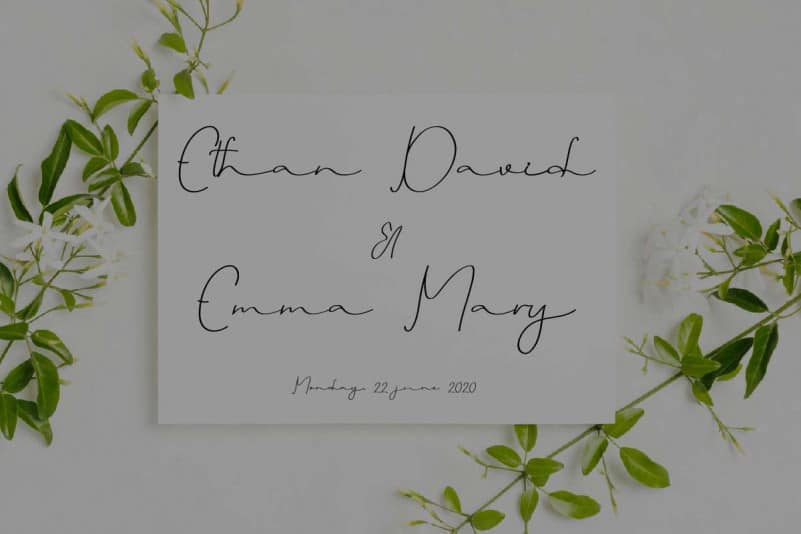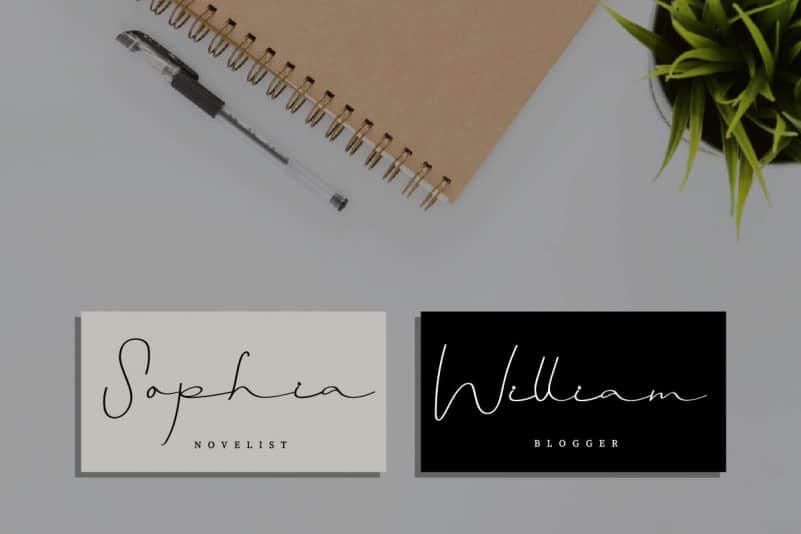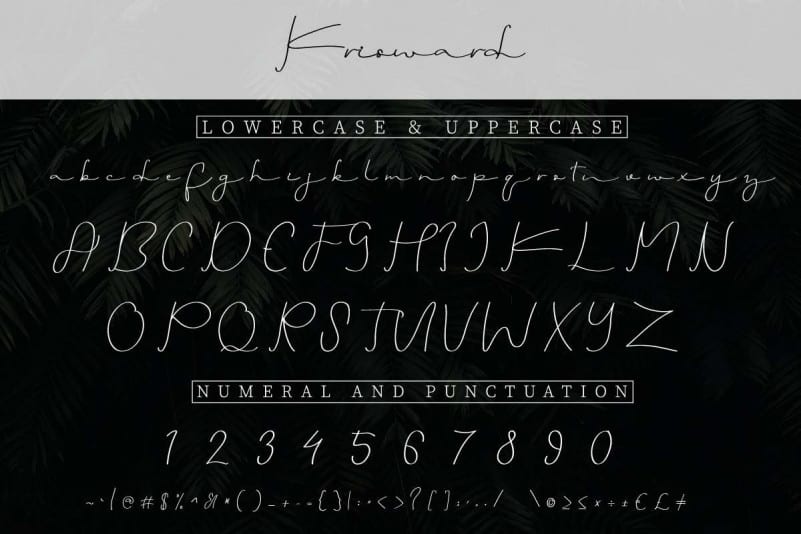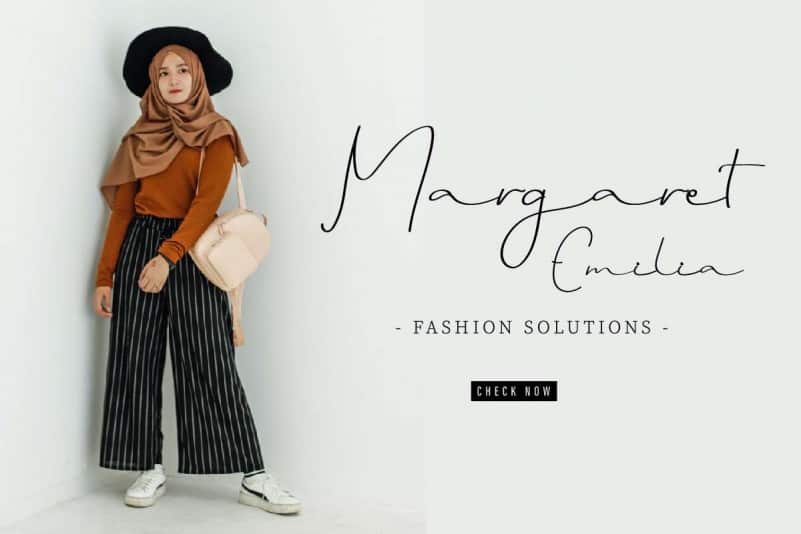
Krisward Signature Modern Font
Krisward Signature Modern Font is a Signature font, handcrafted from our Studio here in, Indonesia. The artists/designers of this beautiful tyeface is Yasri and Suci.